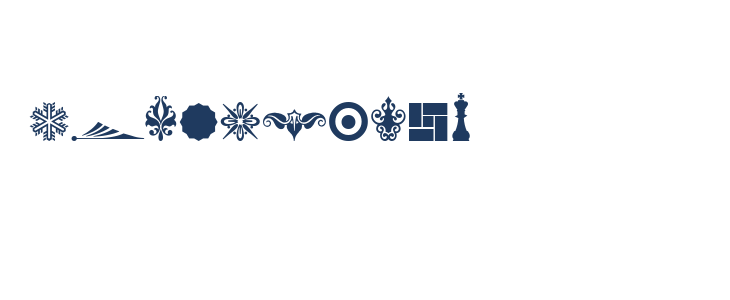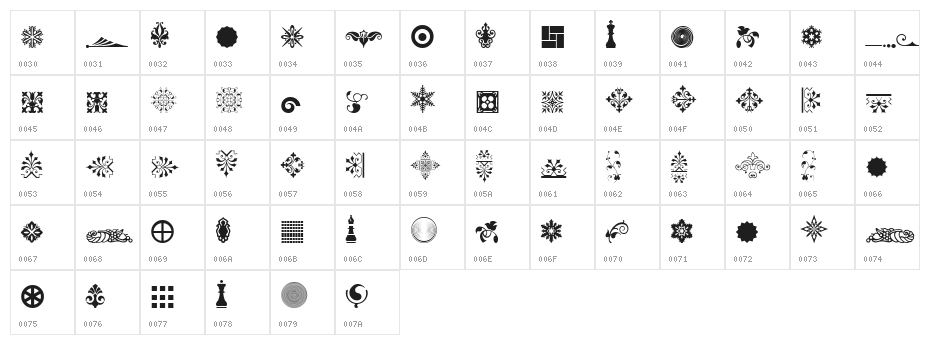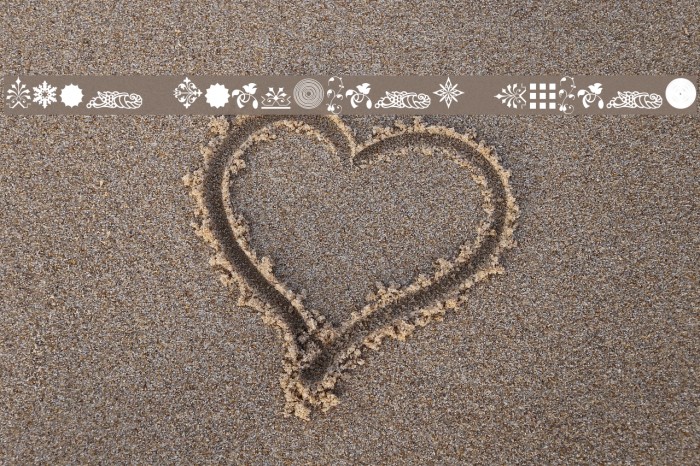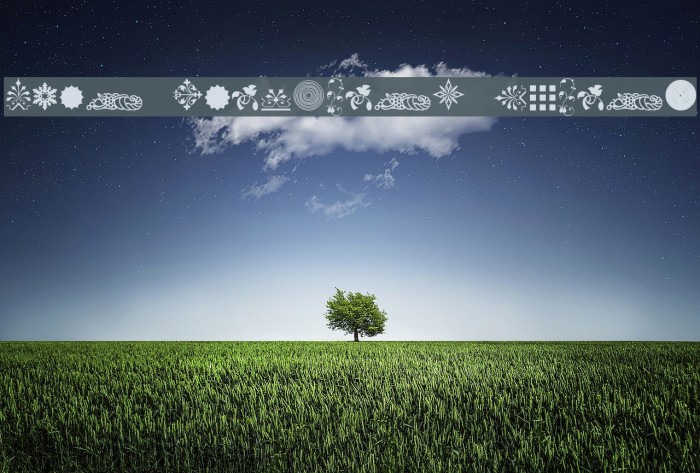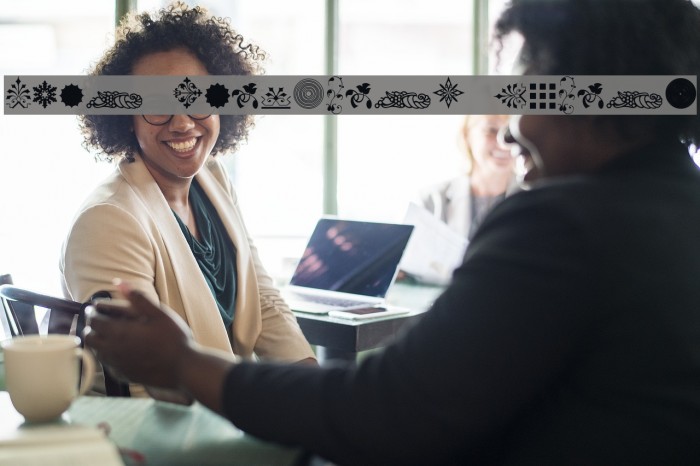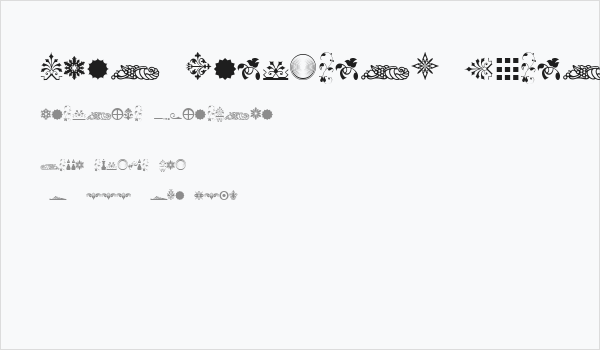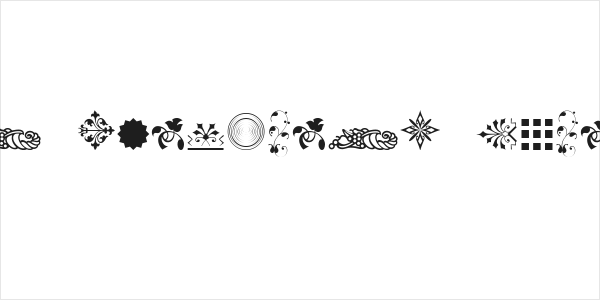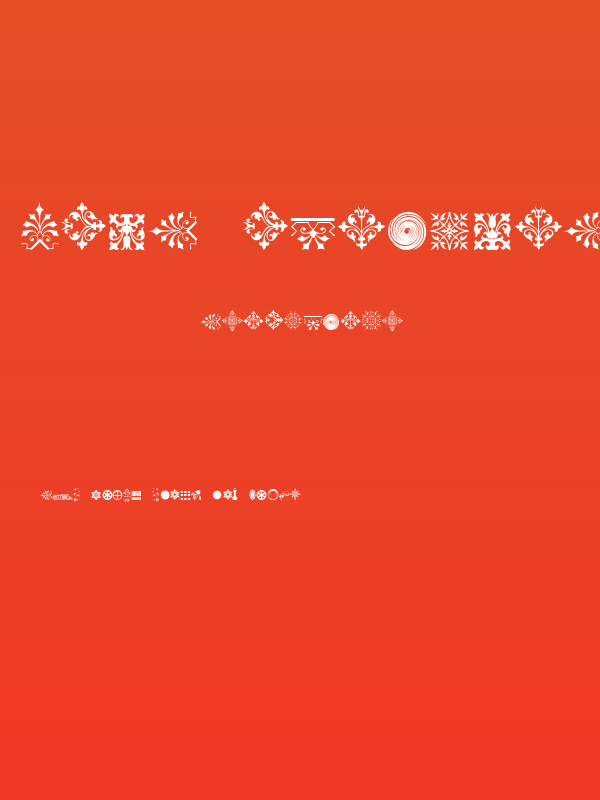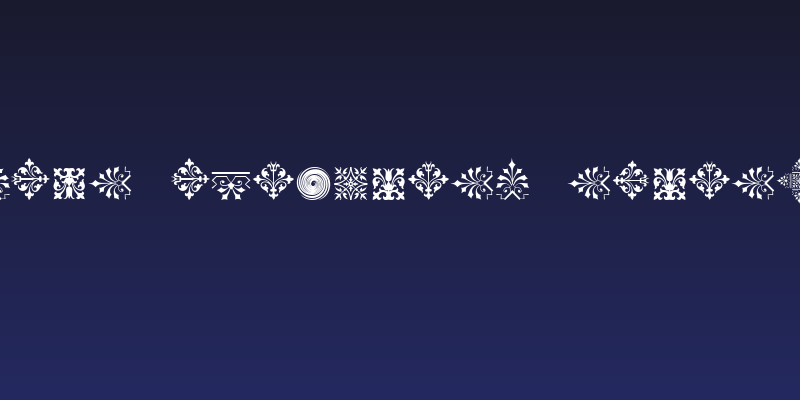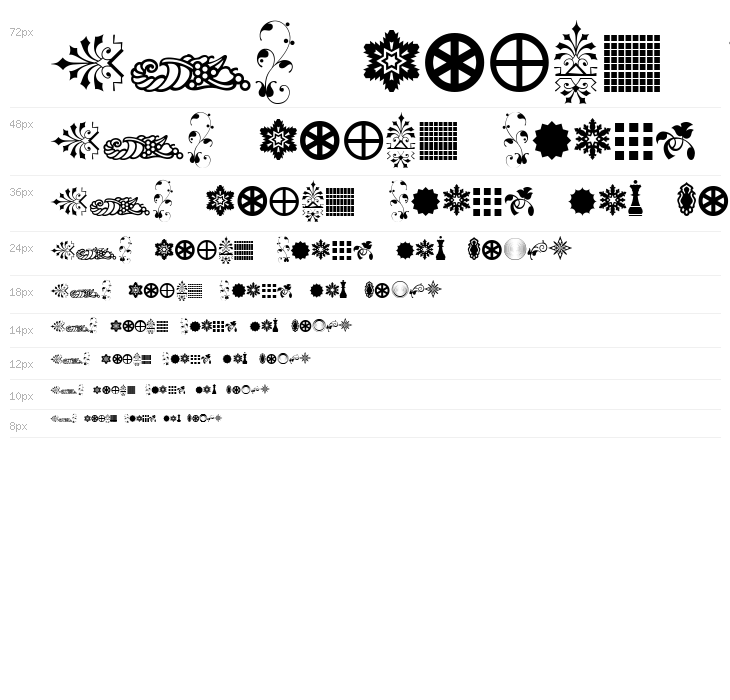
Soft Ornaments Twenty Font
Soft Ornaments Twenty Description
A collection of intricate ornamental glyphs and decorative symbols, featuring floral motifs, flourishes, geometric shapes, snowflakes, chess pieces, and abstract elements. The designs are bold, highly detailed, and primarily symmetrical, suitable for embellishing layouts or creating borders.
| Overall Style | Decorative, Vintage |
| Use Case | Borders, embellishments, invitations, certificates, decorative accents. |
| Proposed Projects | Invitations, certificates, decorative borders, vintage-style posters, scrapbooking, branding accents. |